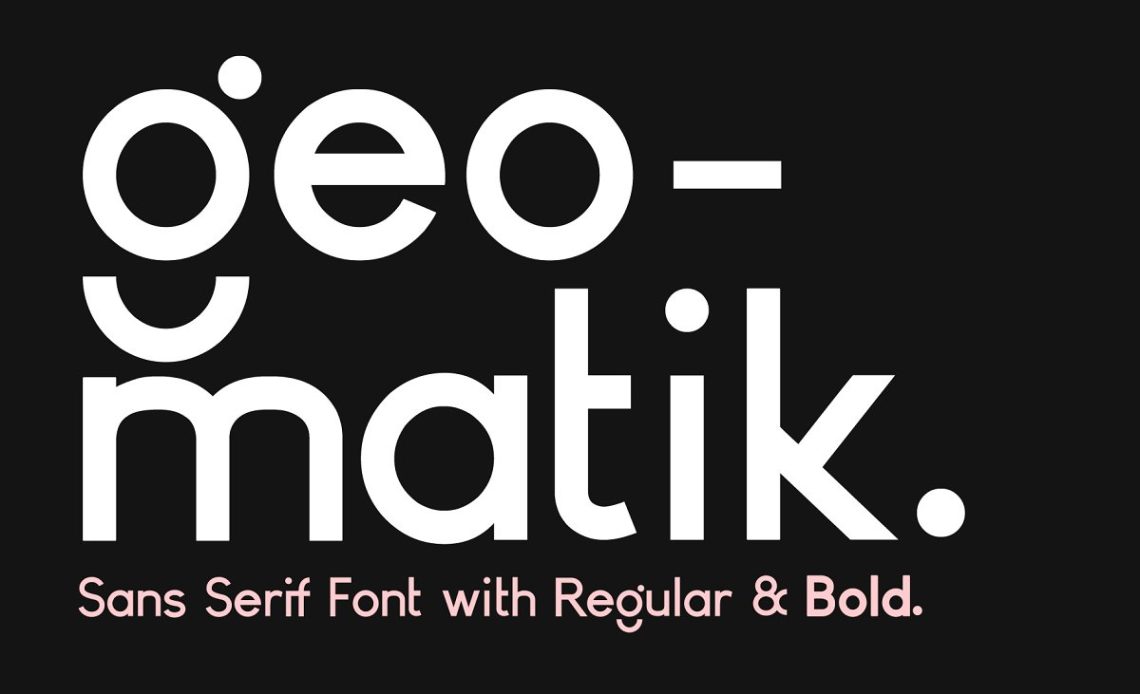
Introducing Geomatik - the Modern Sans Serif Font that will revolutionize your designs! Created by the talented New Tropical Design Studio, this font is specifically designed for tech enthusiasts and individuals looking to make a bold statement.
With its sleek and contemporary design, Geomatik is perfect for any project requiring a modern touch. Whether you're creating a website, designing a logo, or crafting eye-catching advertisements, this font will elevate your work to new heights.
What sets Geomatik apart from other fonts is its unique balance between experimentation and classic appeal. It's just edgy enough to add a touch of modernity, yet timeless enough to seamlessly integrate into any design. From body copy to word-marks, Geomatik effortlessly adapts to your creative vision.
Say goodbye to boring and predictable fonts - Geomatik is here to shake things up. Its versatility is unmatched, making it an excellent choice for mastheads, pull quotes, and even fashion editorials. Stand out from the crowd and let your designs make a lasting impression.
Featuring two weights, Geomatik gives you the freedom to play with different styles and emphasize key elements. Whether you prefer a bold and attention-grabbing look or a more subtle and elegant approach, this font has got you covered.
Navigating through the digital landscape has never been easier with Geomatik. It offers uppercase and lowercase letters, numbers, and punctuation, ensuring that you have everything you need to create visually stunning and cohesive designs.
Make Geomatik your go-to alternative to Helvetica and watch your designs come to life. The possibilities are endless, and the impact is undeniable. Don't settle for mediocrity - let Geomatik be the driving force behind your creative endeavors.